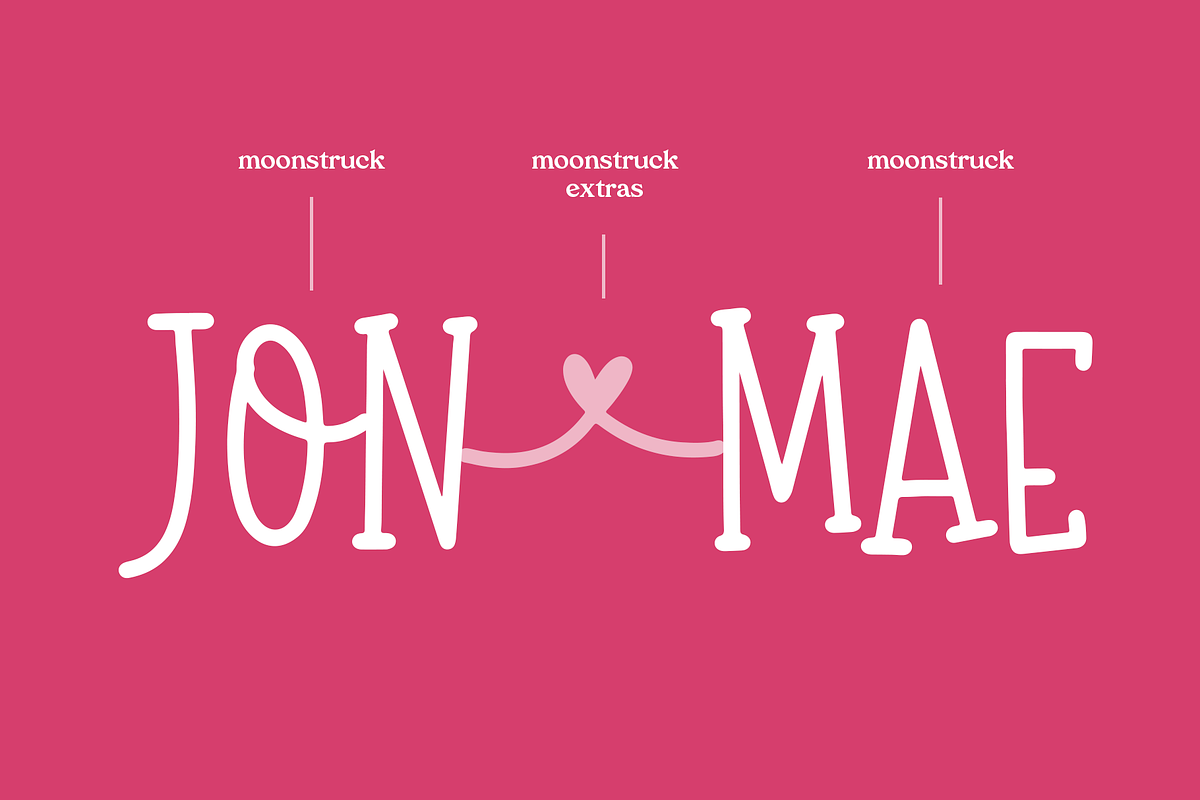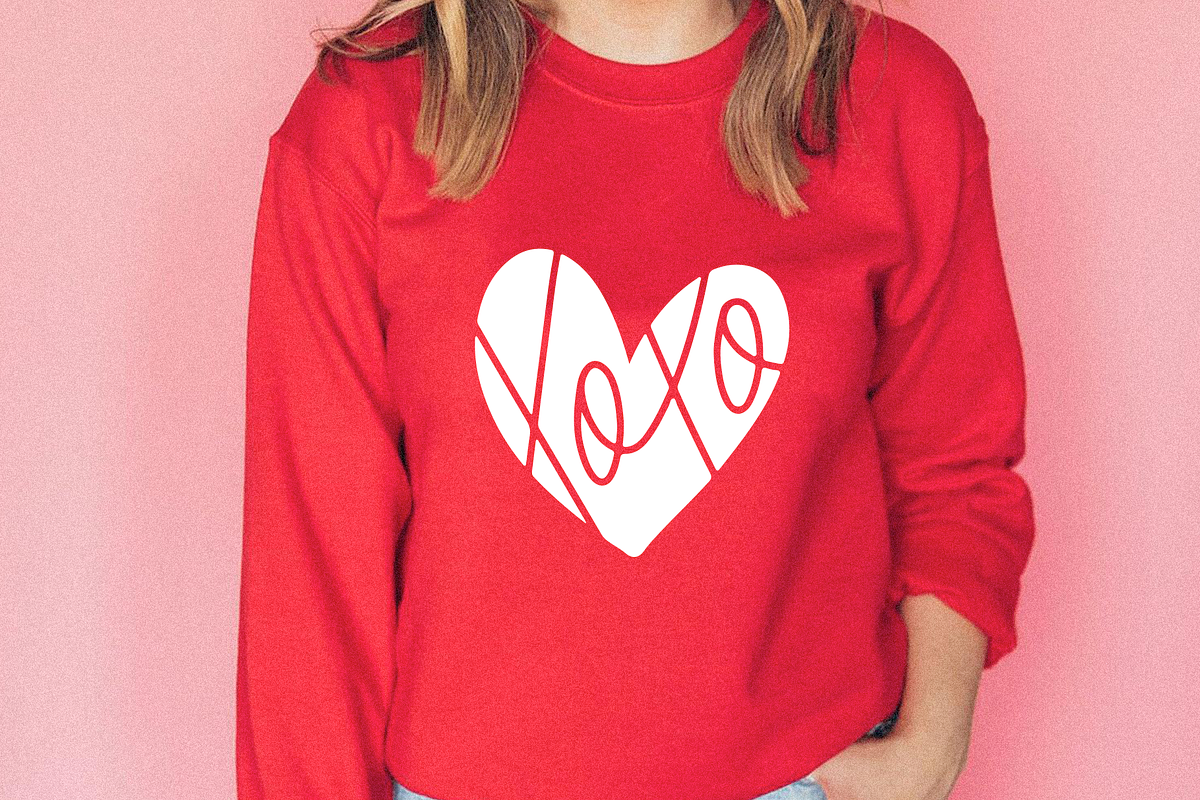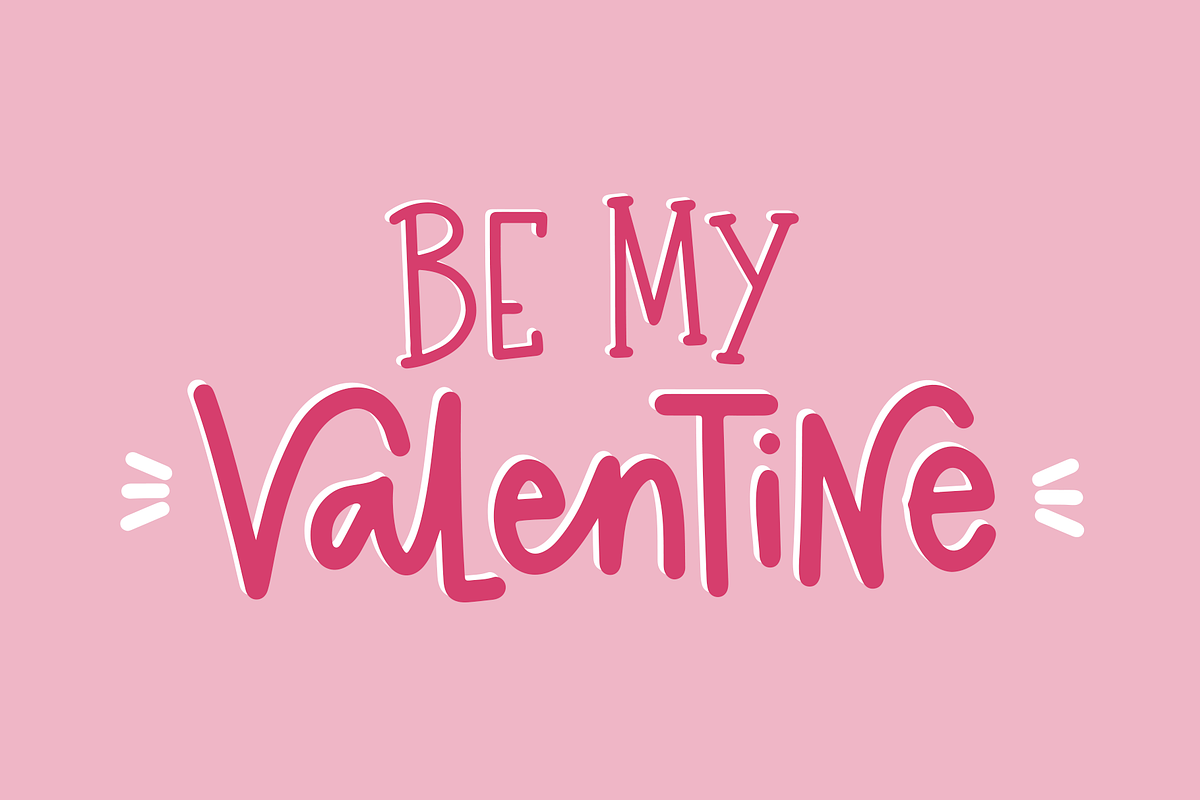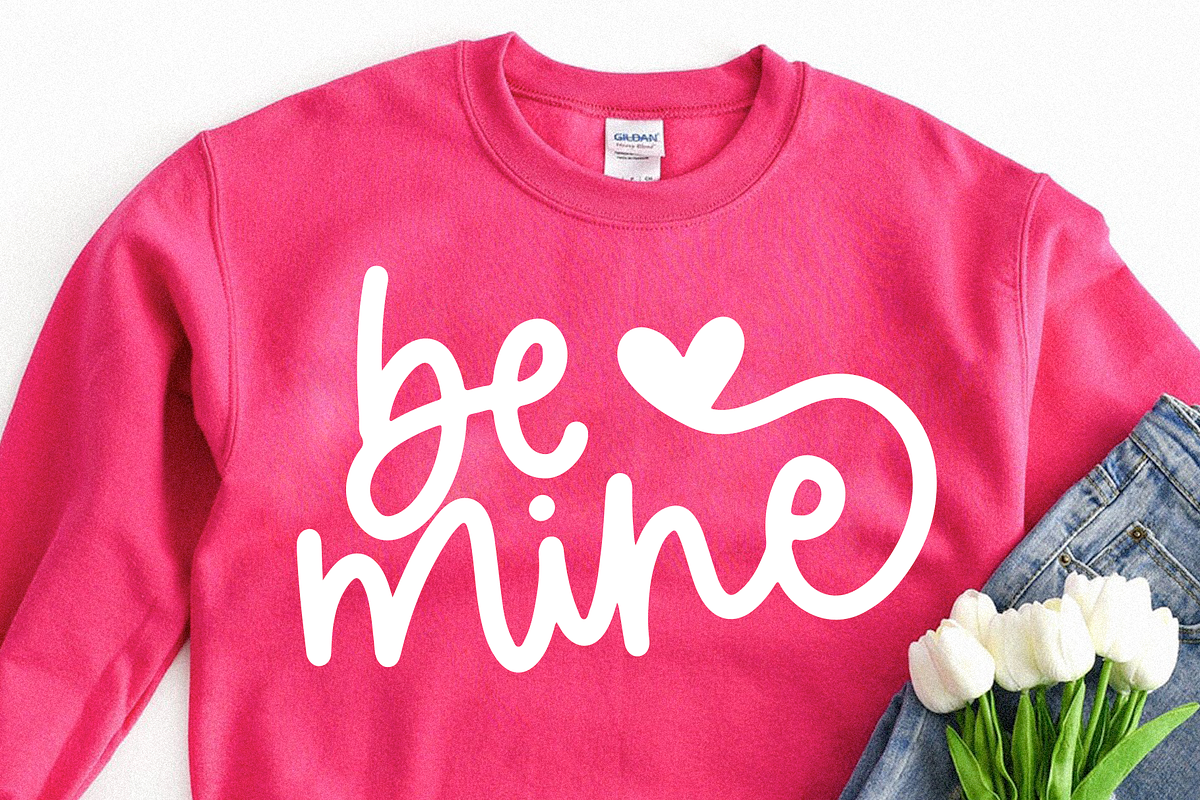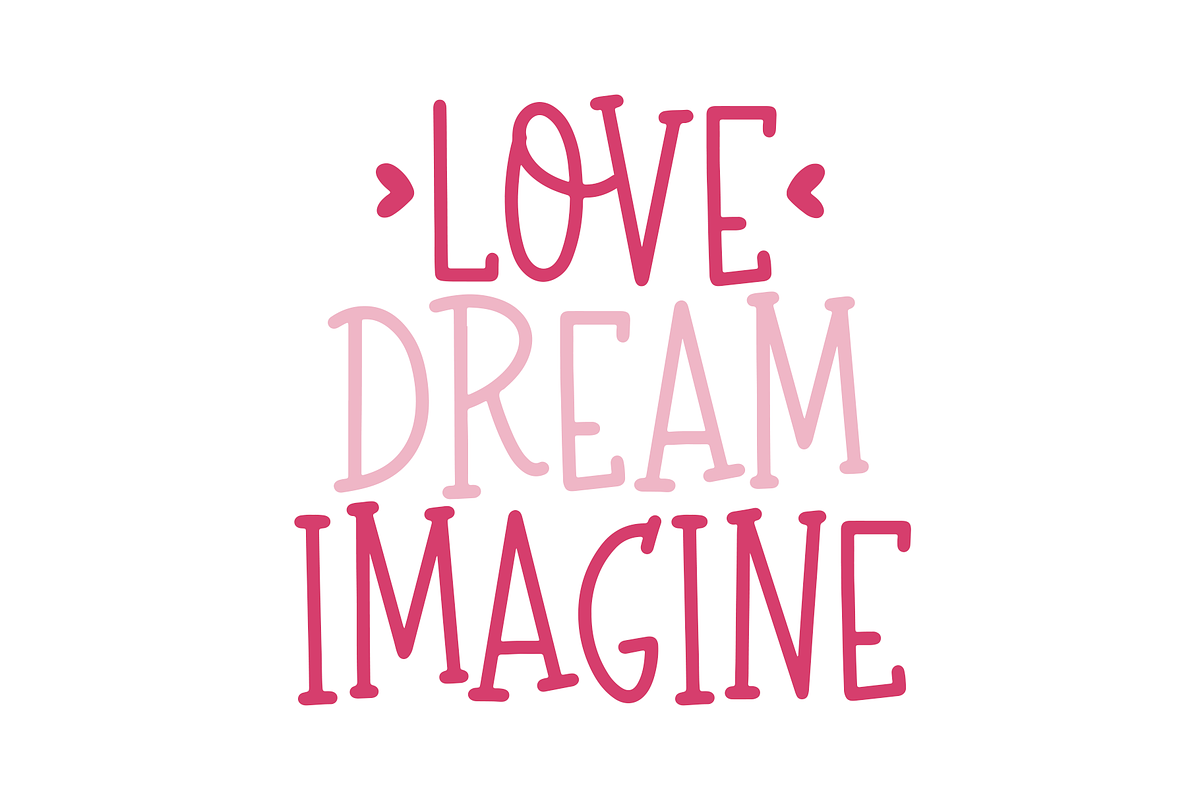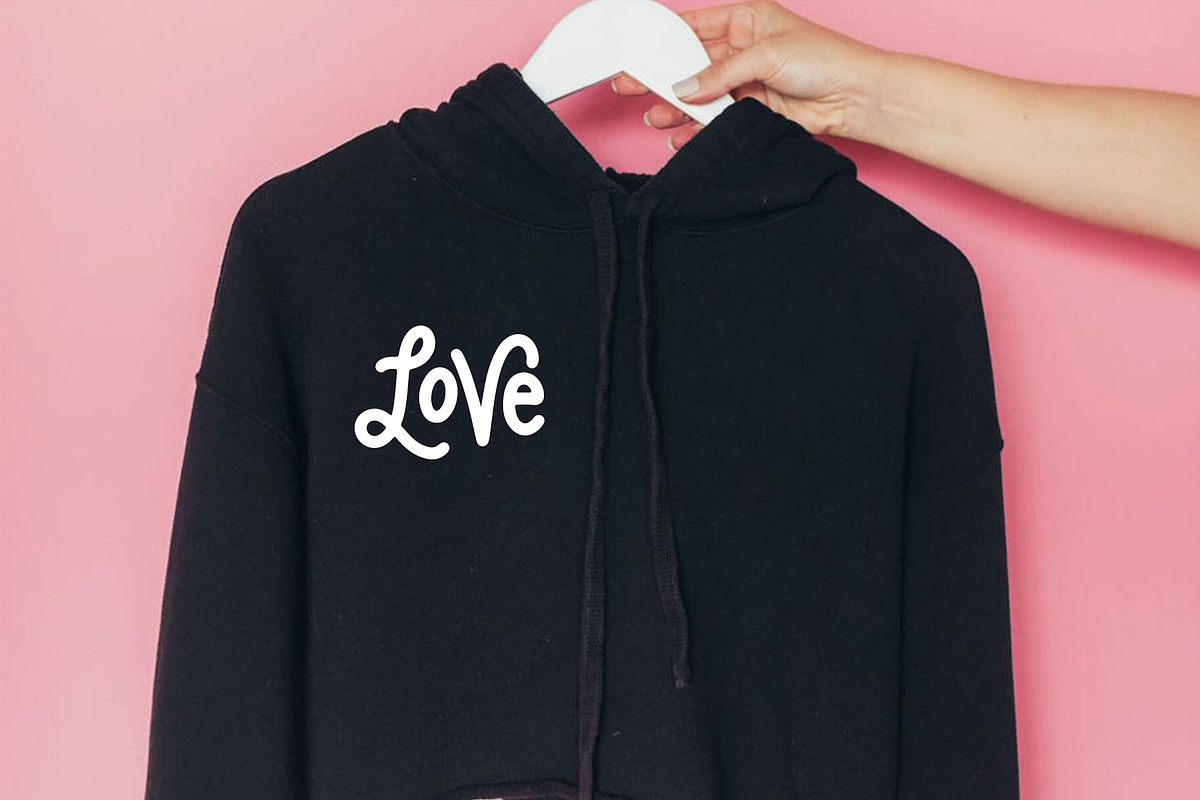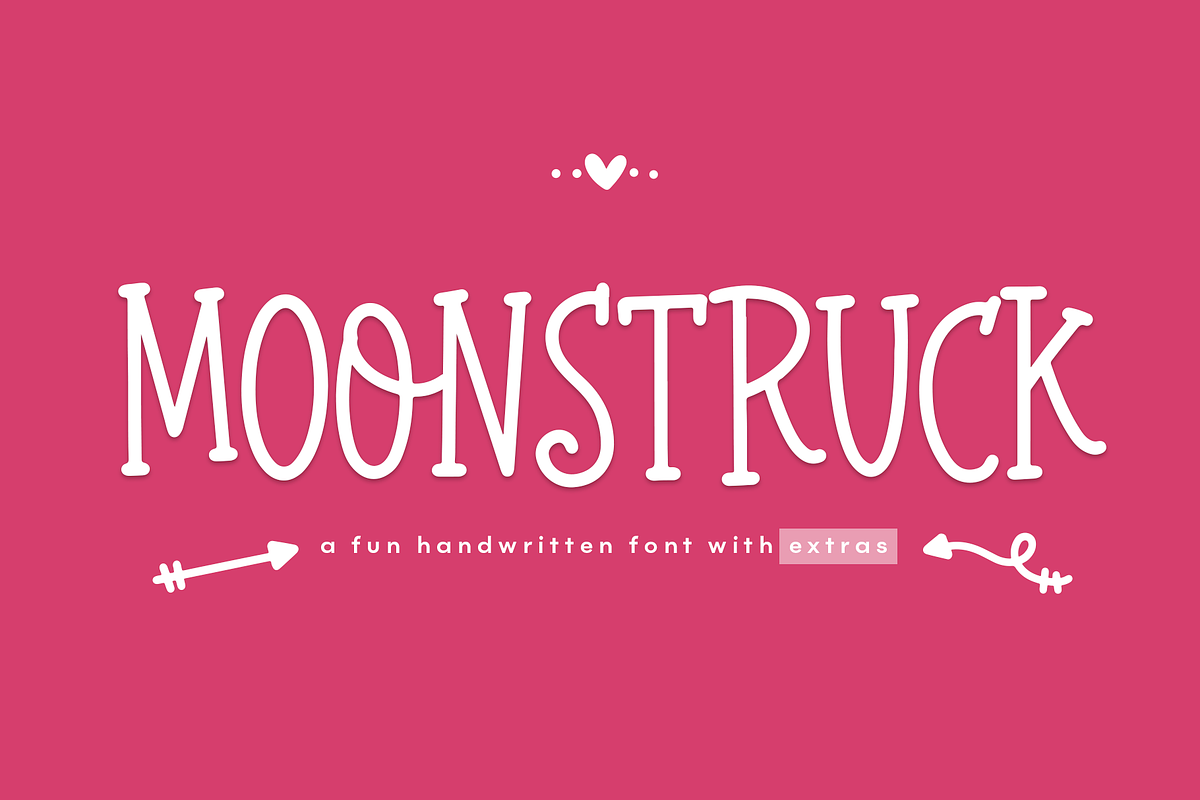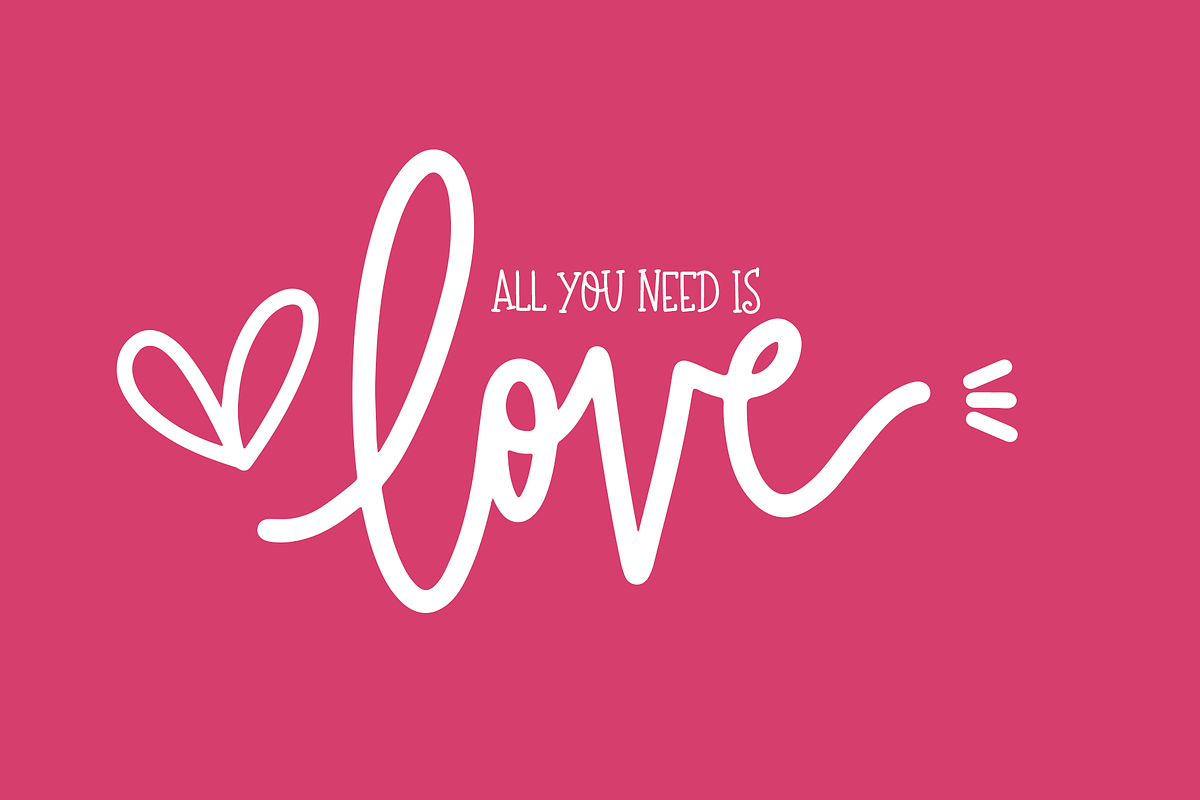
Moonstruck | Font with Extras
Moonstruck is a quirky handwritten font with a full set of valentine's (or everyday) doodles! This is an all caps font - with ligatures for OO and alternates for I + O.
Moonstruck Extras includes 52 hand-drawn and hand-lettered doodles. To access these doodles use characters A-Z & a-z.
This font is perfect for quotes, shirt designs, websites, branding, children's designs, svg designs, blogs, logos, invitations and more!
- Moonstruck Extras includes 52 hand-drawn and hand-lettered doodles.
- This is an all caps font - with ligatures for OO and alternates for I + O.